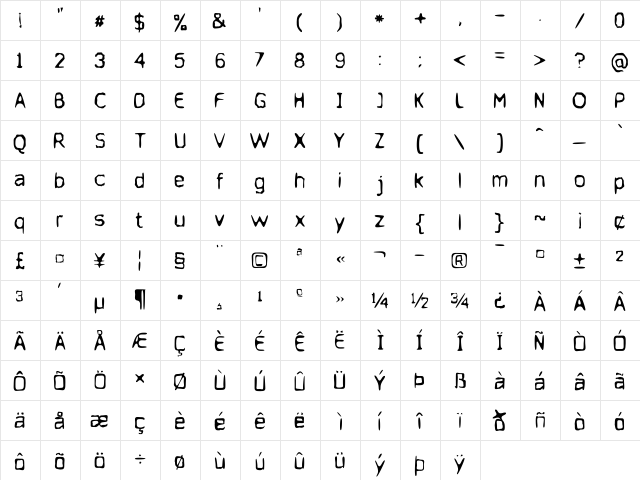
Jupiter Jellyrock Regular
Design Context for Jupiter Jellyrock Typeface
Jupiter Jellyrock offers clean, dependable letterforms without strong stylistic allegiance, making it a practical choice for designers who need flexibility.
Pro Tip: Use Jupiter Jellyrock in both headline and body roles to test its range before committing to a single application.